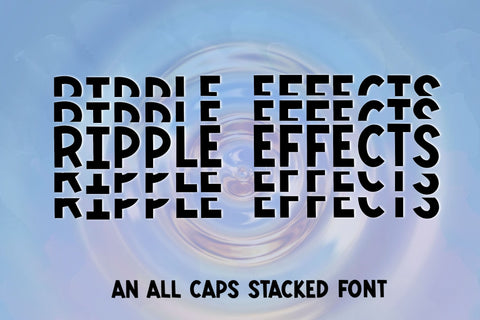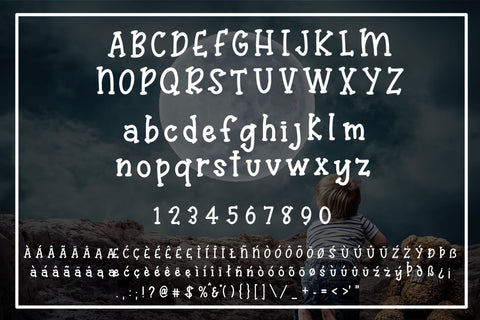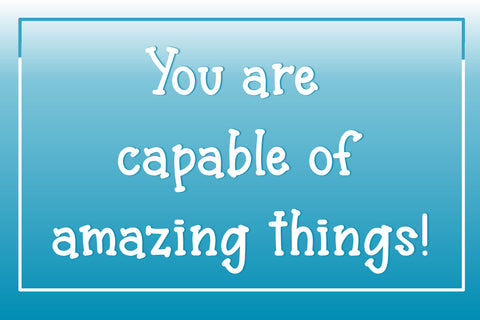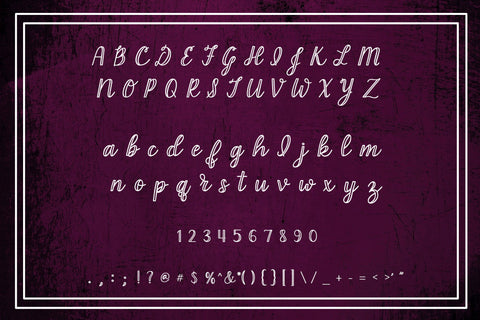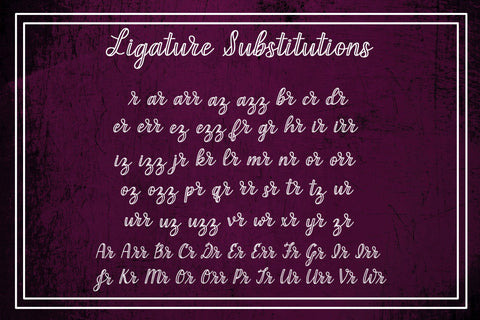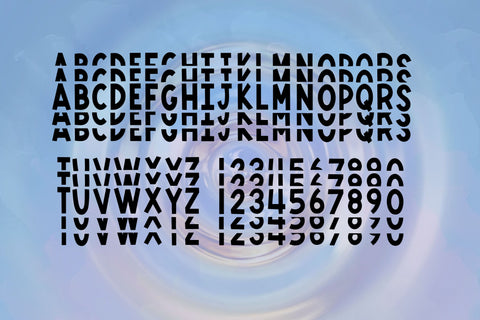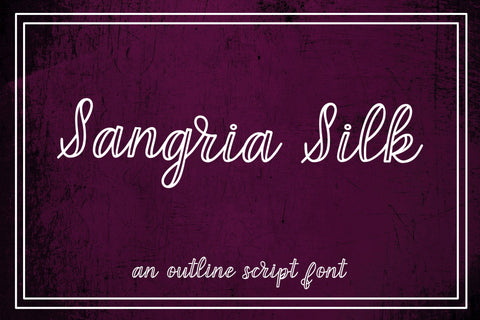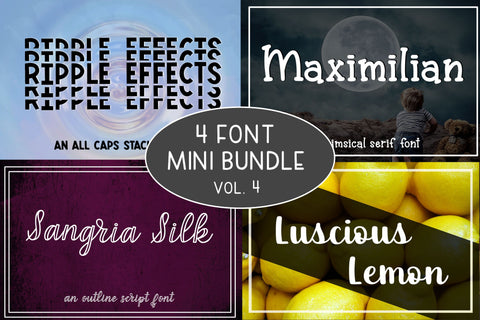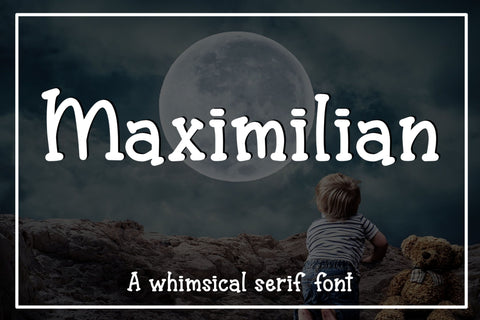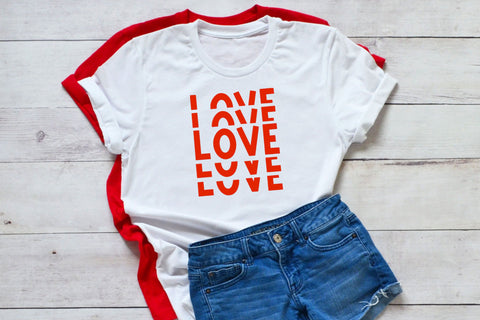
4 Font Mini Bundle - Volume 4
It's here!!! 4 Font Mini Bundle - Volume 4 - featuring 4 craft friendly fonts!!!
Ripple Effects - An all caps stacked font
Sangria Silk - An outline script font
Maximilian - A whimsical serif font
Luscious Lemon - A thick script font